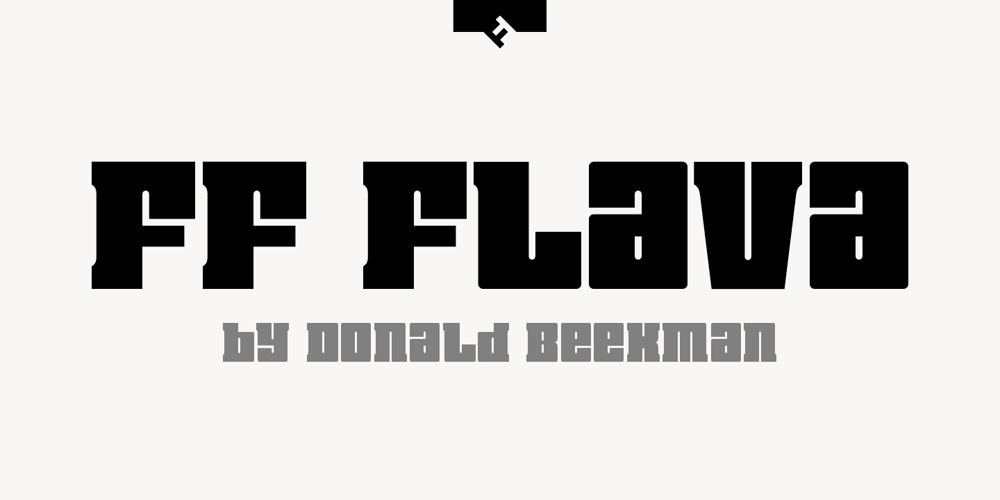
FF Flava Font Family was designed by Donald Beekman and published by FontFont. FF Flava contains 4 styles and family package options. Dutch type designer Donald Beekman created this display FontFont in 2003. The family contains 4 weights and is ideally suited for advertising and packaging, music and nightlife as well as poster and billboards. FF Flava provides advanced typographical support with features such as ligatures. It comes with proportional lining figures.